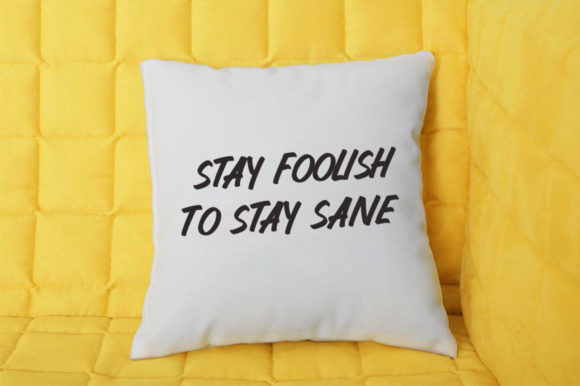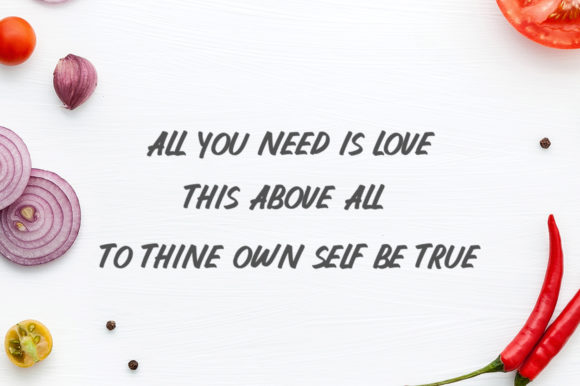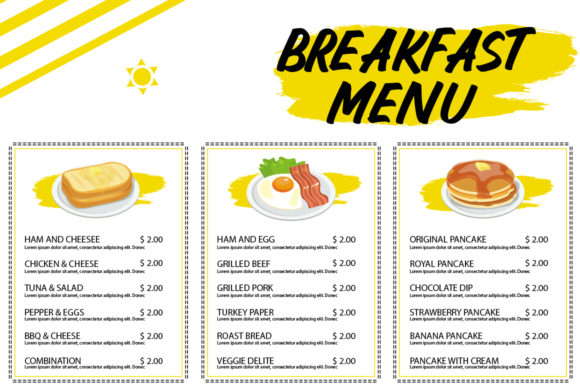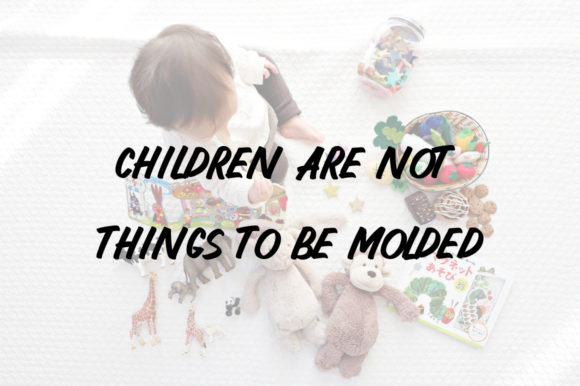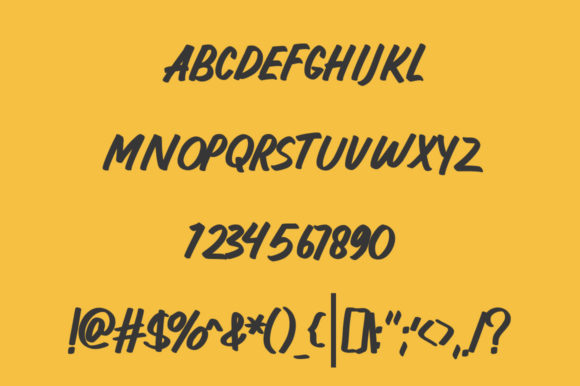
Introduction to Lemonpie Font
Lemonpie is a thick lettered and bold display font.
Add this font to your favorite creative ideas and notice how it makes them come alive .
Key Features of Lemonpie Font
Why Choose Lemonpie Font?